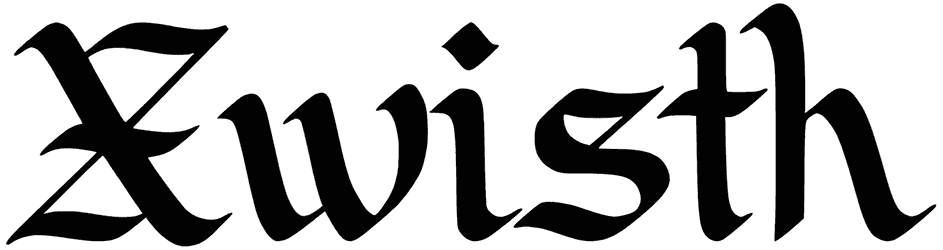
Xwisth Font
Xwisth is a wonderful gothic font that has the real potential to bring a sense of classic, vintage, drama, and professionalism to your artwork such as strategic video game posters, logos, product packaging, or book covers, and turn them into a true piece of art. Just in case you are looking for another font in the same category, don’t hesitate to visit our marvelous archive.